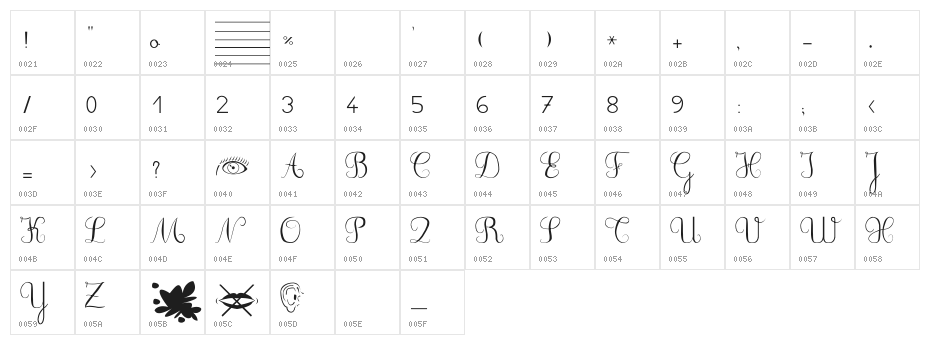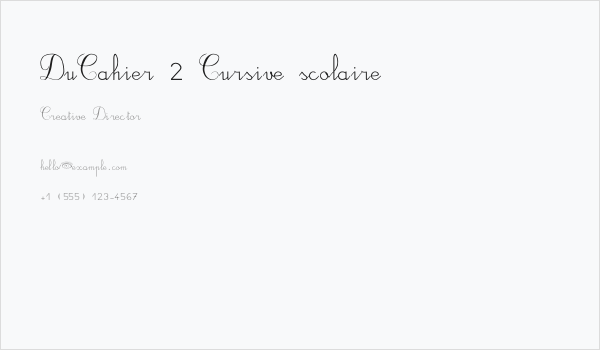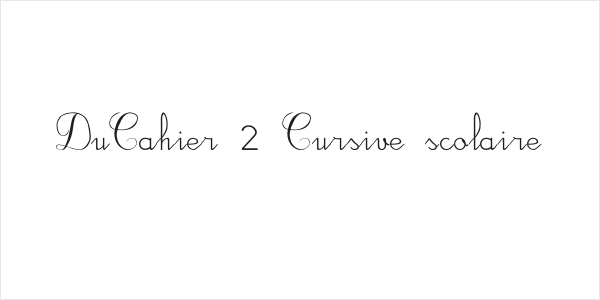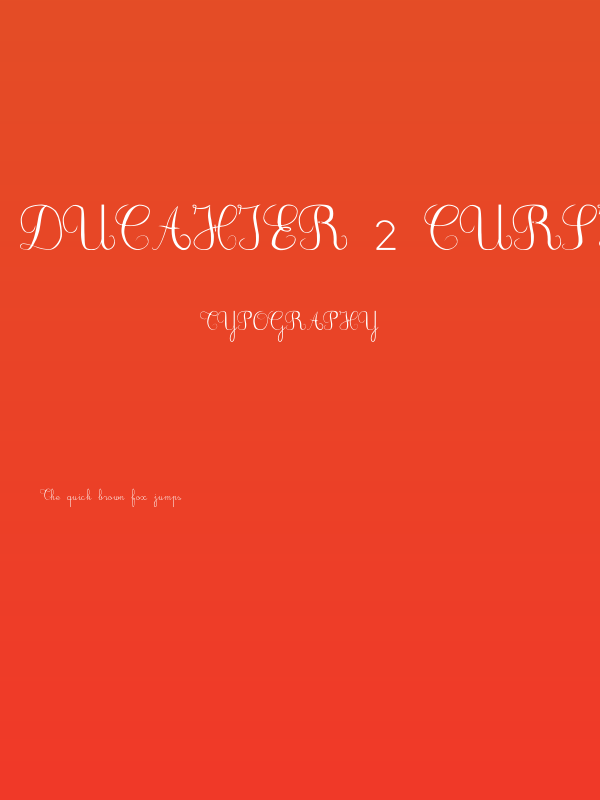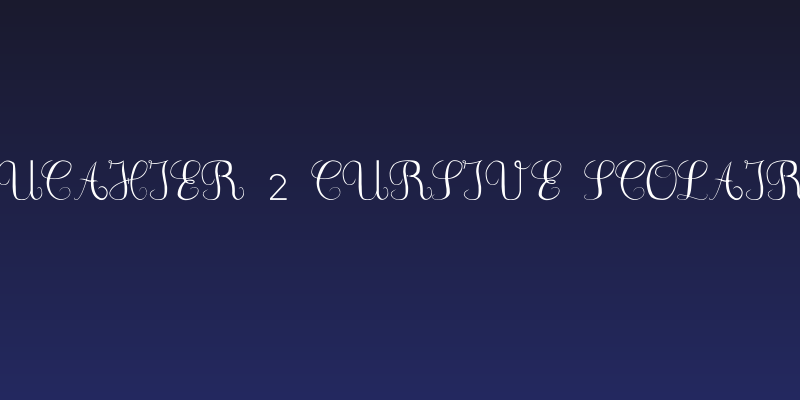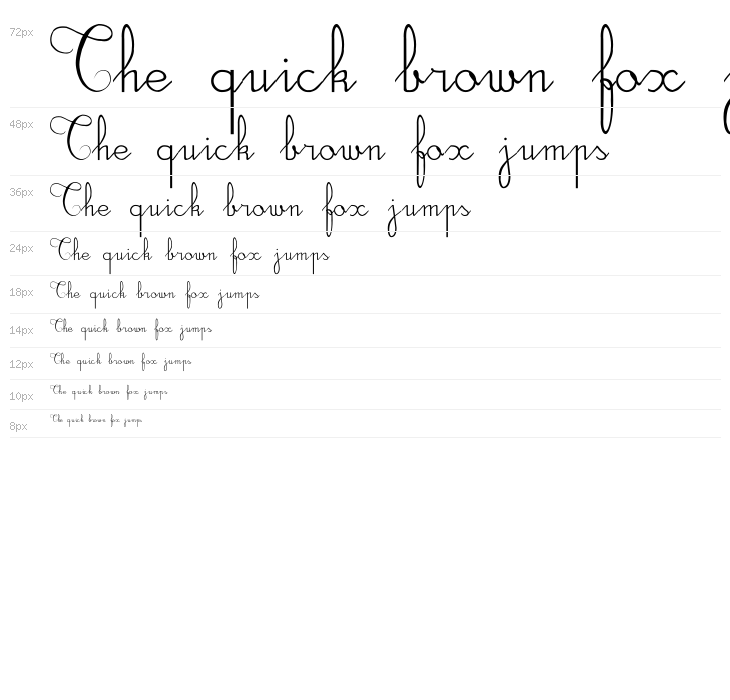
DuCahier 2 Cursive scolaire Font
DuCahier 2 Cursive scolaire Description
This font features a delicate and elegant cursive style, characterized by its flowing, interconnected letterforms. The uppercase letters exhibit a graceful looped design, while the lowercase letters maintain a consistent, smooth flow. The numerals are clean and straightforward, complementing the overall cursive aesthetic. Special characters are thoughtfully integrated, maintaining the font's cohesive and sophisticated appearance. This font's refined and artistic nature makes it suitable for projects that require a touch of elegance and creativity.
| Use Case | Headlines, Invitations, Artistic projects |
| Proposed Projects | Ideal for wedding invitations, greeting cards, personal branding, and artistic projects. |